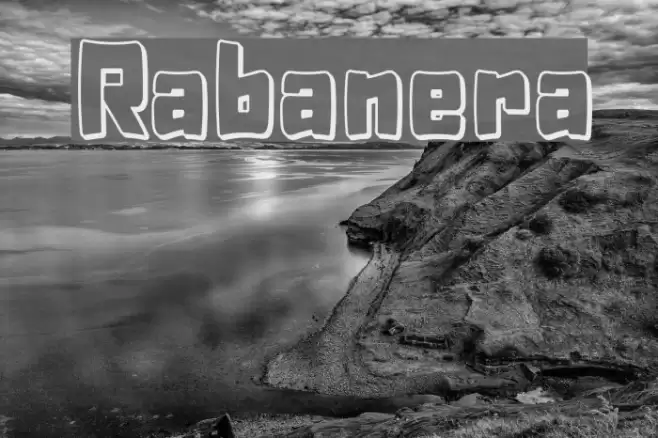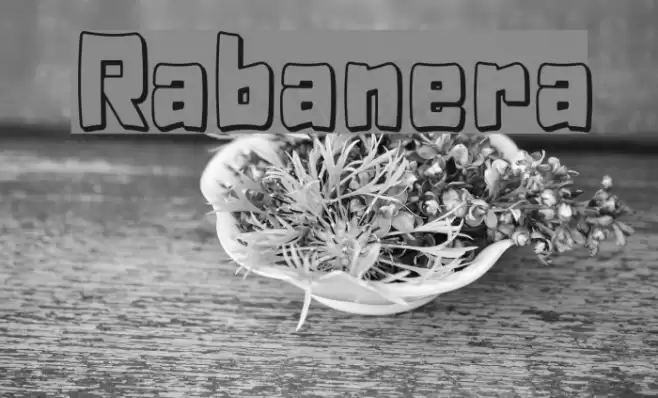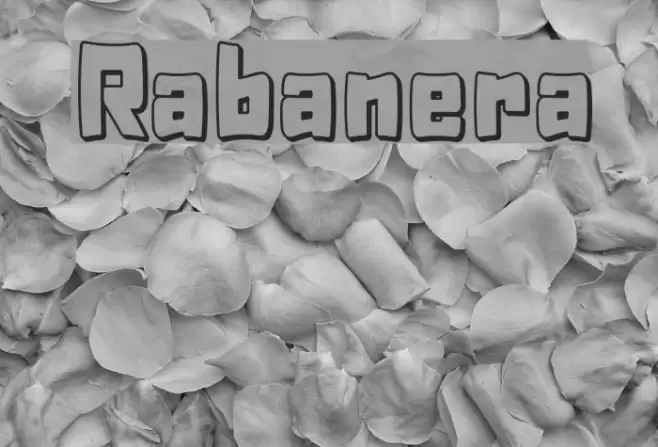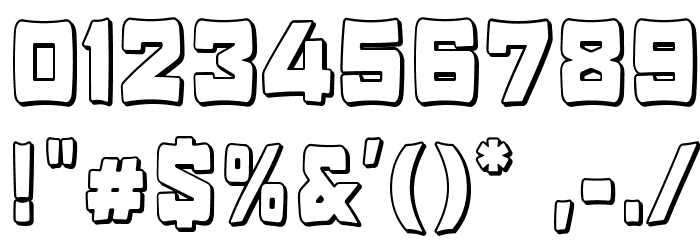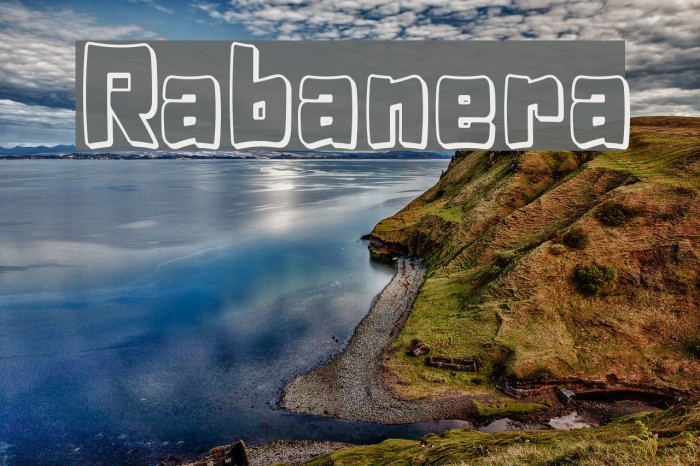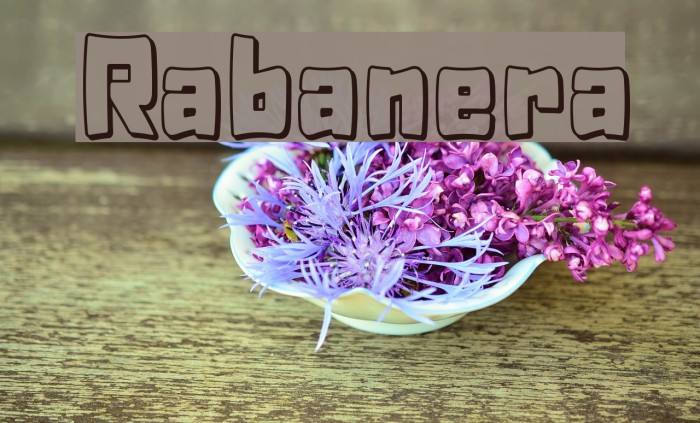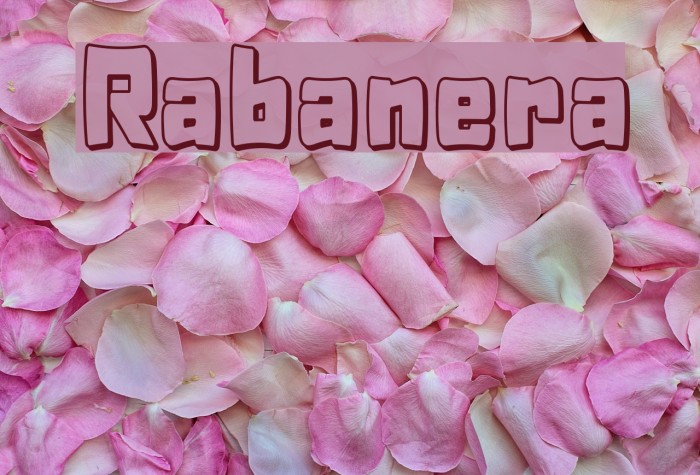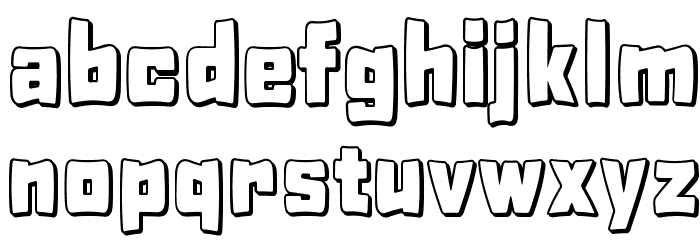
Rabanera Font
Rabanera Description
This font features a bold, playful style with a hand-drawn appearance. The characters have a thick outline that gives them a cartoonish, whimsical feel. The uppercase and lowercase letters maintain a consistent width, creating a uniform look. The numbers and special characters follow the same design, ensuring cohesion across all elements. The font's unique style makes it stand out, with each character having a slightly irregular shape, adding to its charm. The overall design is approachable and friendly, making it suitable for creative and informal projects.
A bold, playful font with a hand-drawn, cartoonish style from Uncategorized fonts.
- Proposed Projects: Ideal for children's books, comic strips, playful branding, and creative posters.
- Overall Style: Playful, Whimsical